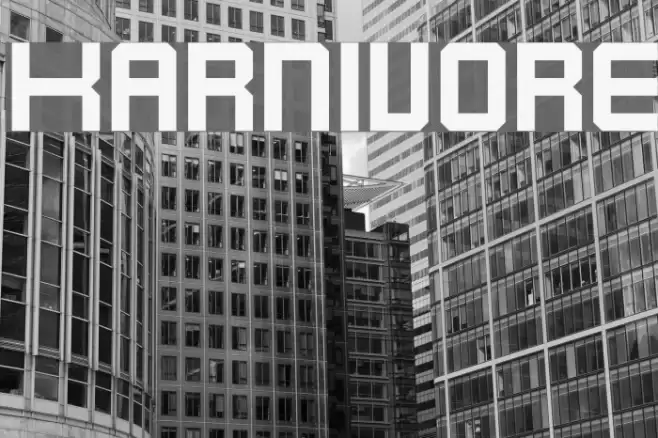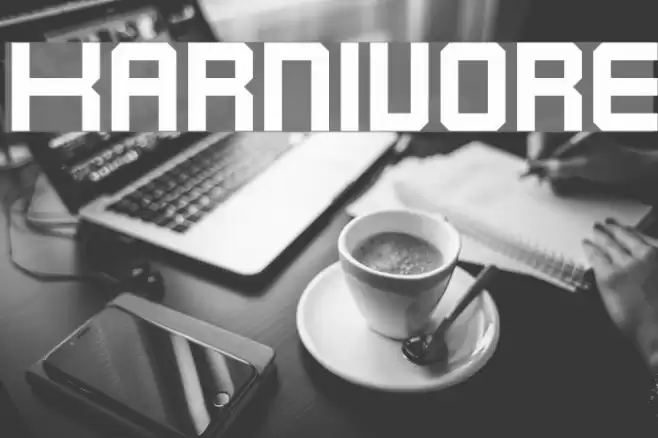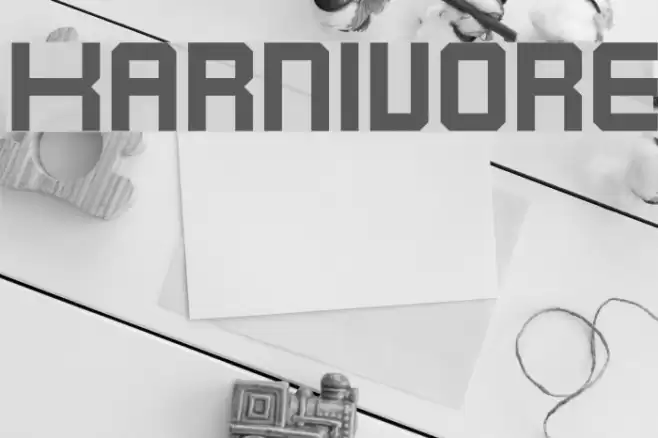
Karnivore Font
Karnivore Description
This font features a bold, geometric design with a strong, angular aesthetic. The characters are constructed with thick, uniform strokes that create a sense of solidity and strength. The uppercase letters are particularly striking, with sharp edges and a blocky appearance that commands attention. The numerals and special characters maintain this robust style, ensuring consistency across all glyphs. The font's design is reminiscent of industrial or futuristic themes, making it suitable for projects that require a modern and impactful look.
A bold, geometric font with a strong, angular design from Uncategorized fonts.
- Proposed Projects: Ideal for branding, posters, video game graphics, and any project requiring a modern, industrial aesthetic.